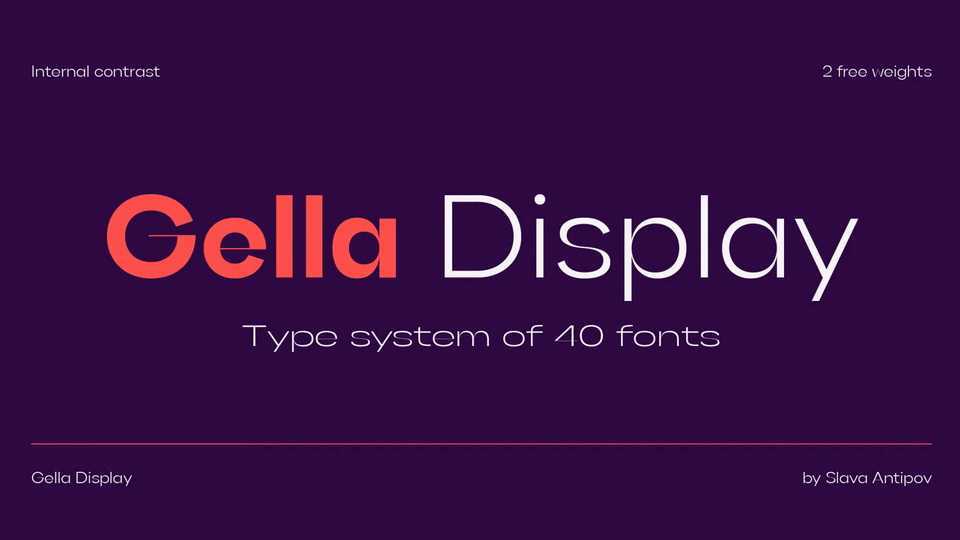
Download Gella Display font, a typeface with high internal contrast. Gella Display is good for typing large amounts of text and for headlines, logos, posters, covers, spectacular presentations, and more.
Designer: Slava Antipov